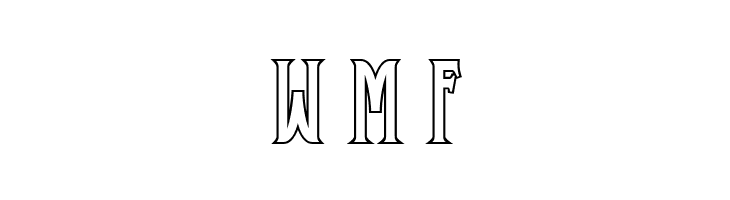
XAyax Font
A bold, narrow font with elongated characters and a modern, artistic style.
XAyax Outline Font
A bold, outlined font with art deco influences, featuring tall, narrow characters.
XAyax Schatten Font
A bold, decorative font with a shadow effect and angular serifs.
XAyaxOutline Font
An elegant, outlined font with tall, narrow characters and a modern aesthetic.